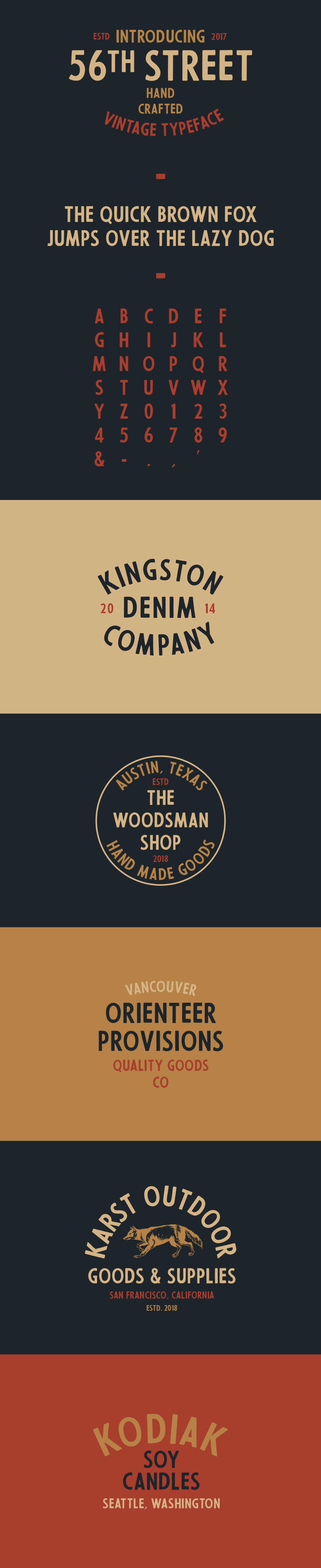
Free 56TH STREET - VINTAGE TYPEFACE
Free 56th street - vintage typeface for graphic designers that need to present their work in a professional way. Go give some love to Pixel Surplus for creating this top-notch font. Amaze your fellow designers and create stunning designs with this cool font.